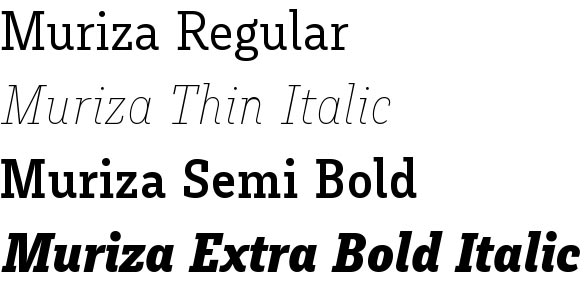
Muriza font
Muriza font family by the German foundry Type me is an elegant Slab Serif font family with fine shapes. It comes in 9 weights, form Hairline to Black, plus their italics. Muriza font is named after a Styrian area with soft rocks, forested mountains, narrow valleys and clear air. All these are embodied in the clear classical, but nevertheless distinctive and unique structure of the letterforms. Muriza font family works well for a wide range of typography applications. There is a plenty of OpenType features available: Small Caps, All Caps, Stylistic Alternates, Discretionary Ligatures, Oldstyle Figures, Historical Forms, etc., as well as an extended language support with most Latin-based scripts supported.